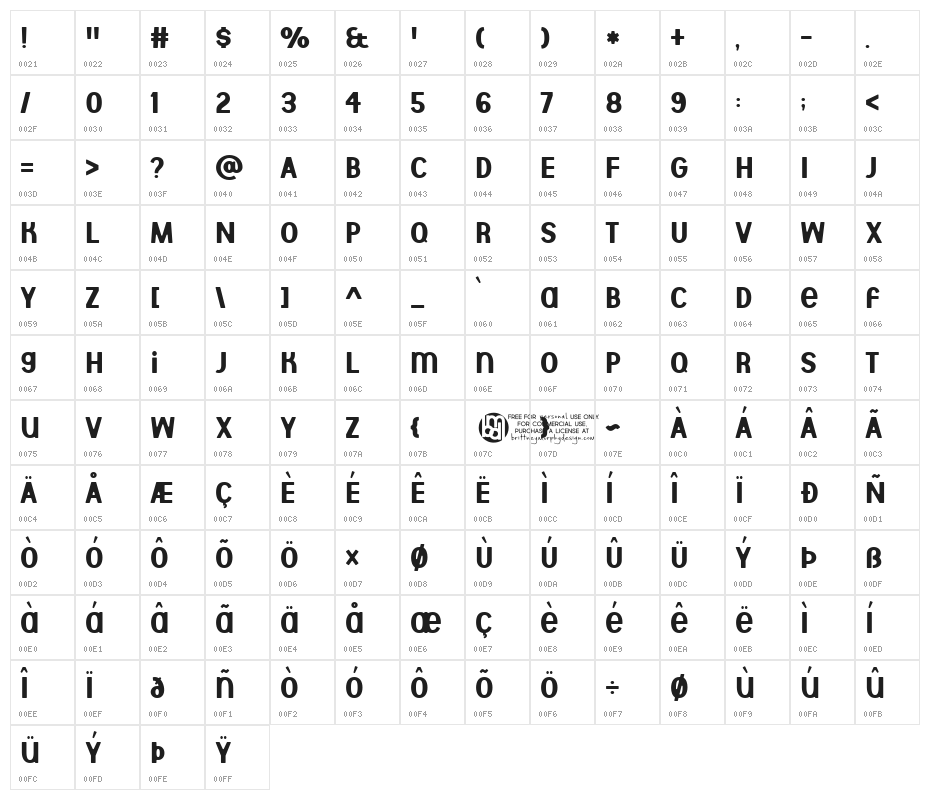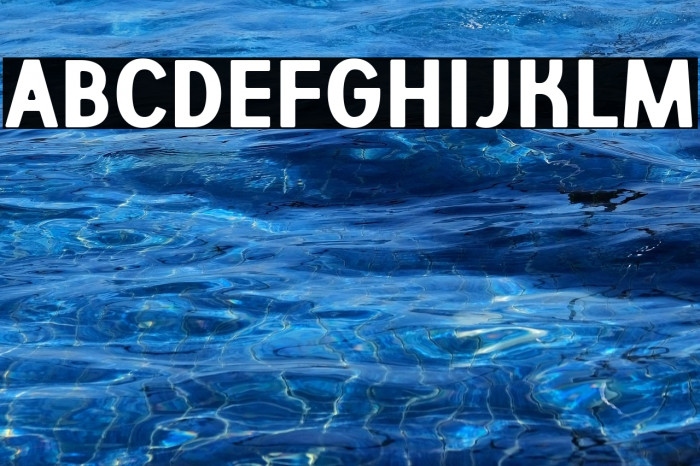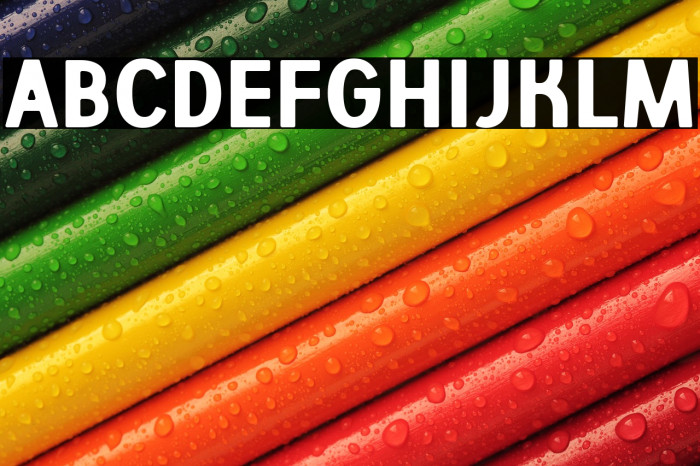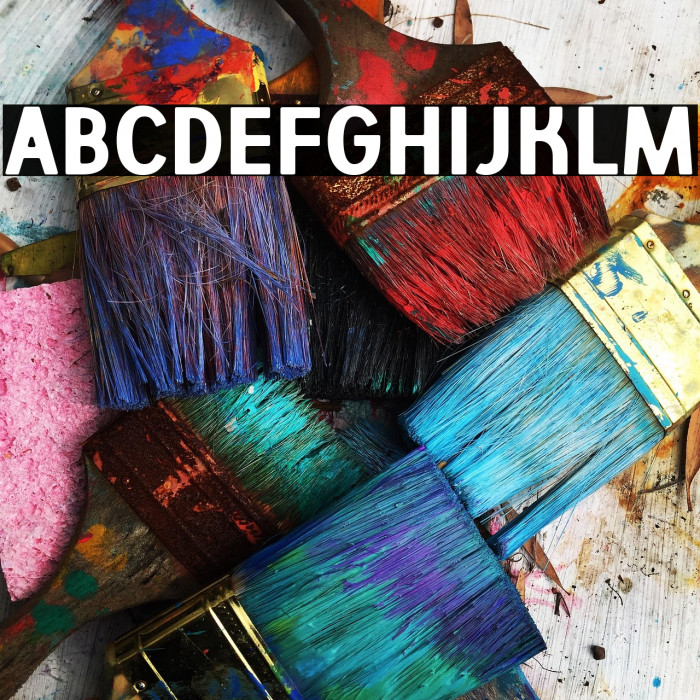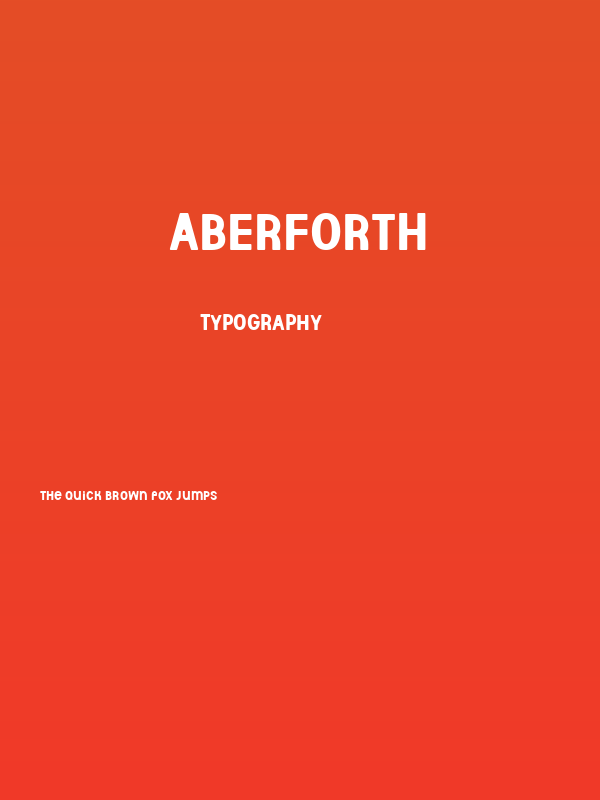
Aberforth Font
Aberforth Description
This font features a bold and rounded style, characterized by its thick strokes and smooth curves. The uppercase letters are uniform in height, while the lowercase letters maintain a consistent baseline, offering a harmonious appearance. The numerals are equally bold, ensuring readability and impact. Special characters are designed with the same boldness, making them stand out. The overall design is modern and friendly, suitable for various applications where a strong yet approachable typeface is needed.
Proposed ProjectsIdeal for branding, advertising, posters, and headlines where a bold statement is needed.